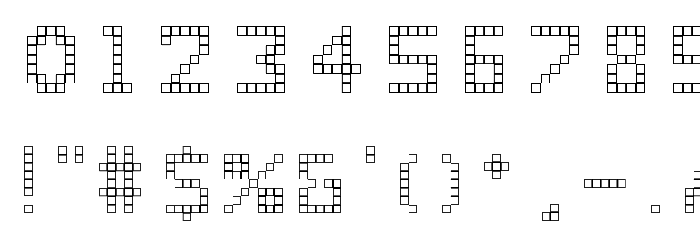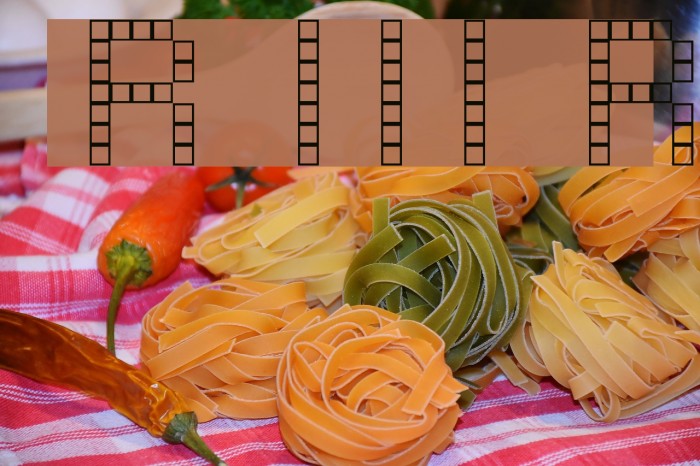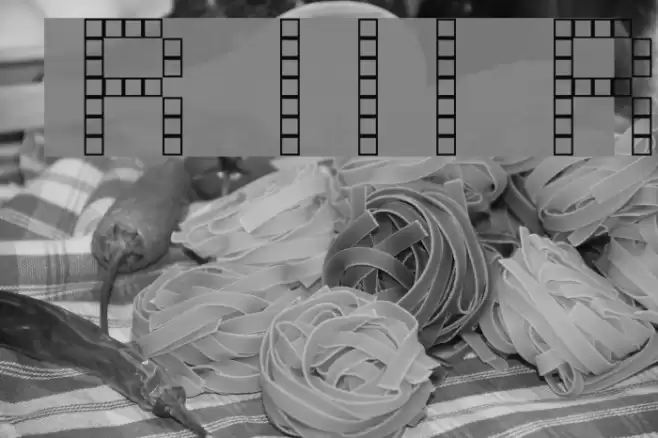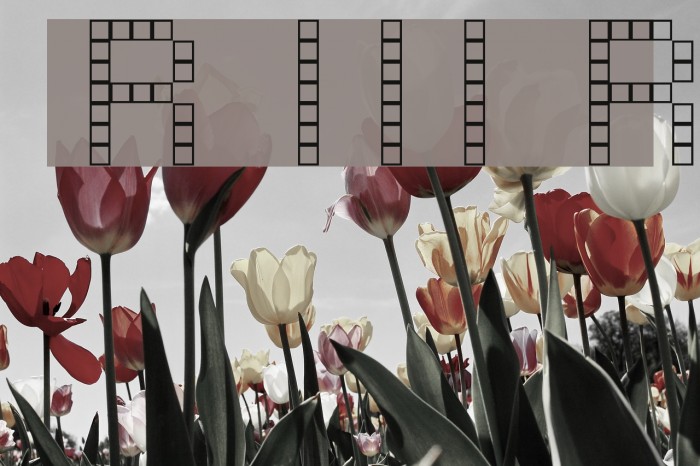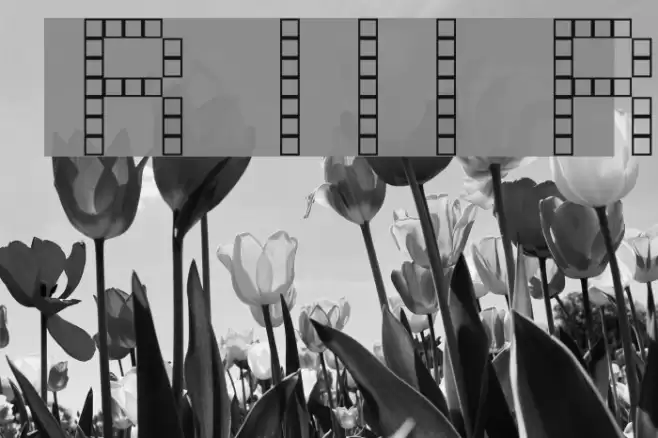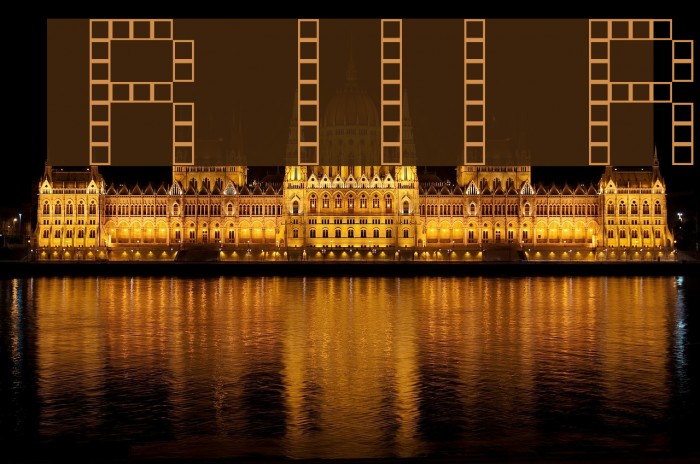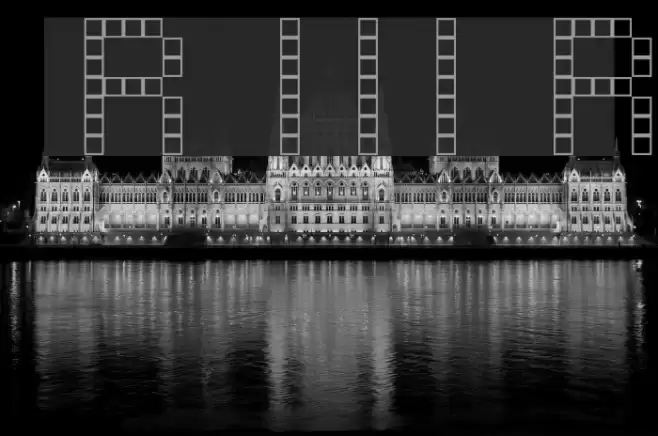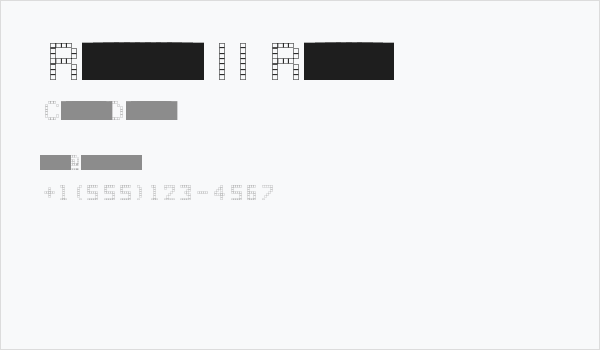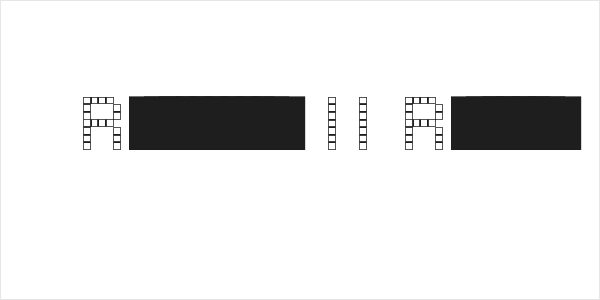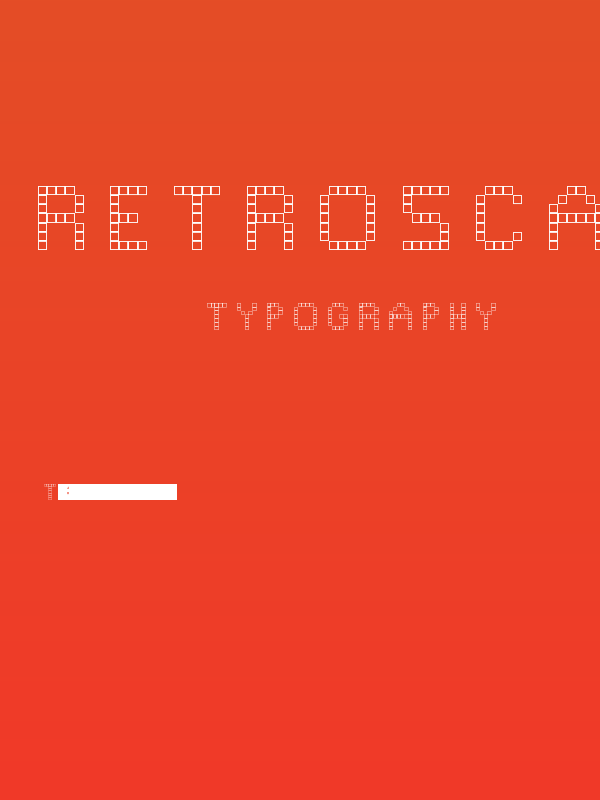
Retroscape III Regular Font
Retroscape III Regular Description
This font features a unique, pixelated design reminiscent of retro digital displays and early video game graphics. Each character is composed of a grid of small squares, giving it a distinct blocky appearance. The uppercase and lowercase letters maintain a consistent height, while the numerals and special characters follow the same pixelated style. The design is uniform across all characters, creating a cohesive and nostalgic aesthetic. This font is ideal for projects that aim to evoke a sense of nostalgia or a retro-futuristic vibe.
| Proposed Projects | Ideal for video game design, retro-themed posters, digital art projects, and any creative work that seeks to capture a vintage digital aesthetic. |